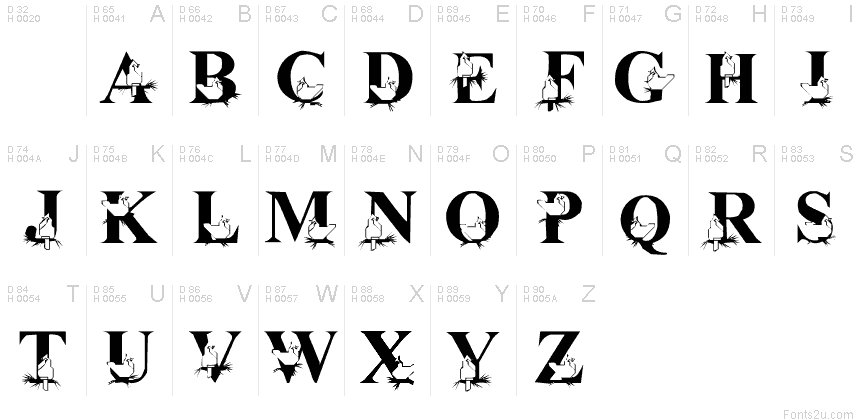
Christmas Cardinals
Christmas Cardinals font by London Stokes is a free decorative display typeface that wraps your text in cozy, storybook holiday charm. Each letter feels like a bold, inky block of winter night with crisp silhouettes of cardinals perched inside, adding a playful narrative twist without feeling cluttered. The contrast between the solid, chunky strokes and the delicate bird shapes gives titles a striking, almost woodcut feel that jumps off the page.
Using Christmas Cardinals in large sizes lets those tiny bird details really sing, making it a natural fit for greeting cards, gift tags, seasonal posters, party invitations, school holiday projects, and festive social graphics. This free font shines on short phrases and headlines; pair it with a simple sans serif for body copy so the illustrated letters stay the star of the show.